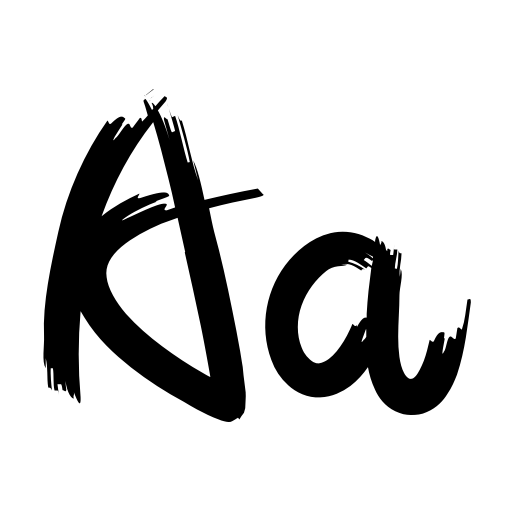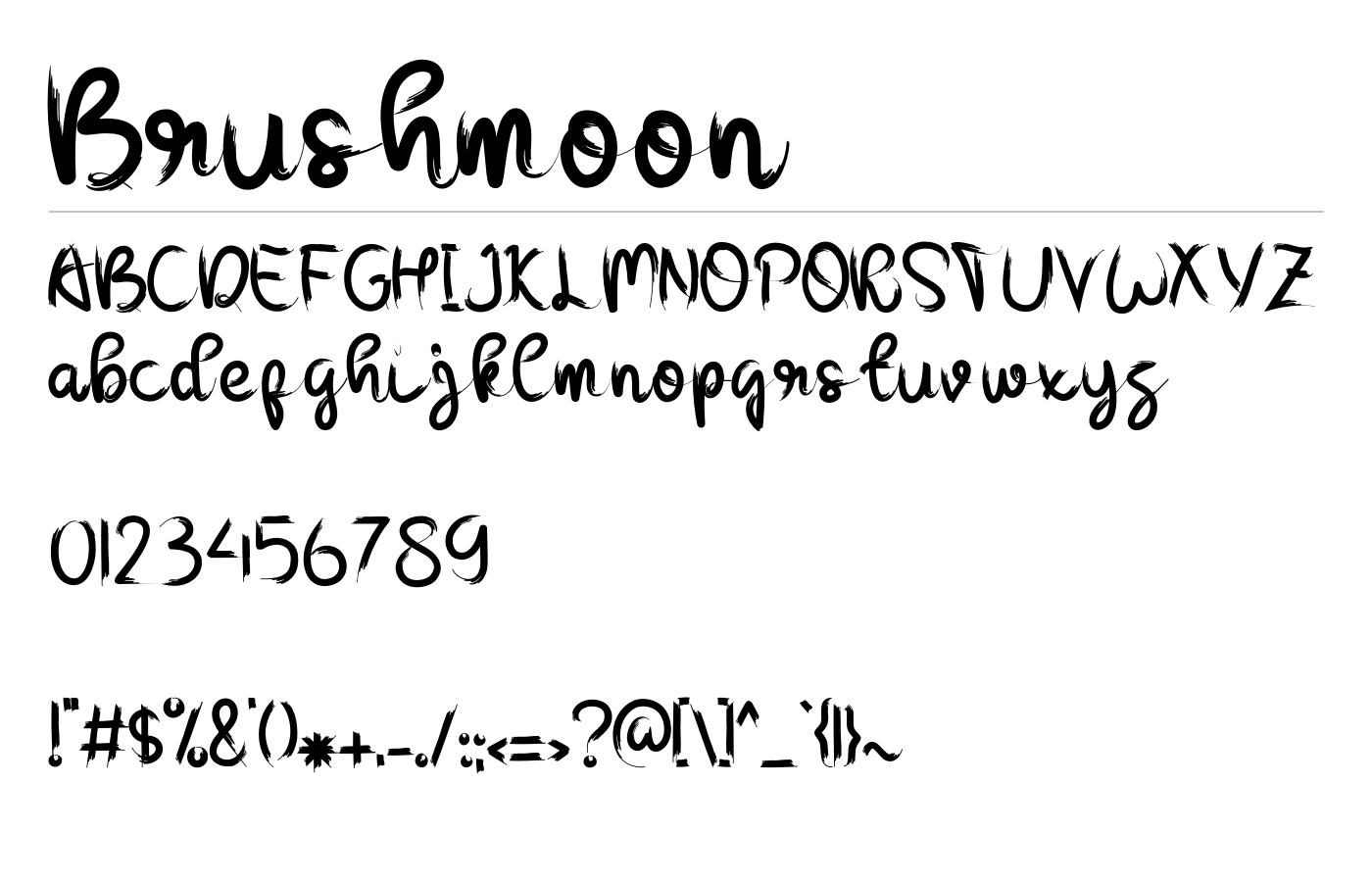
Brushmoon is a playful and expressive brush script font with a casual, hand-painted feel. Its bold, slightly textured strokes and lively irregularities make it perfect for creative, fun, and informal designs like logos, posters, and social media graphics where a personal, artistic touch is desired. This font works well to convey energy and friendliness, adding a unique handcrafted vibe to various branding and decorative projects.
Brushmoon Font
About Brushmoon Font